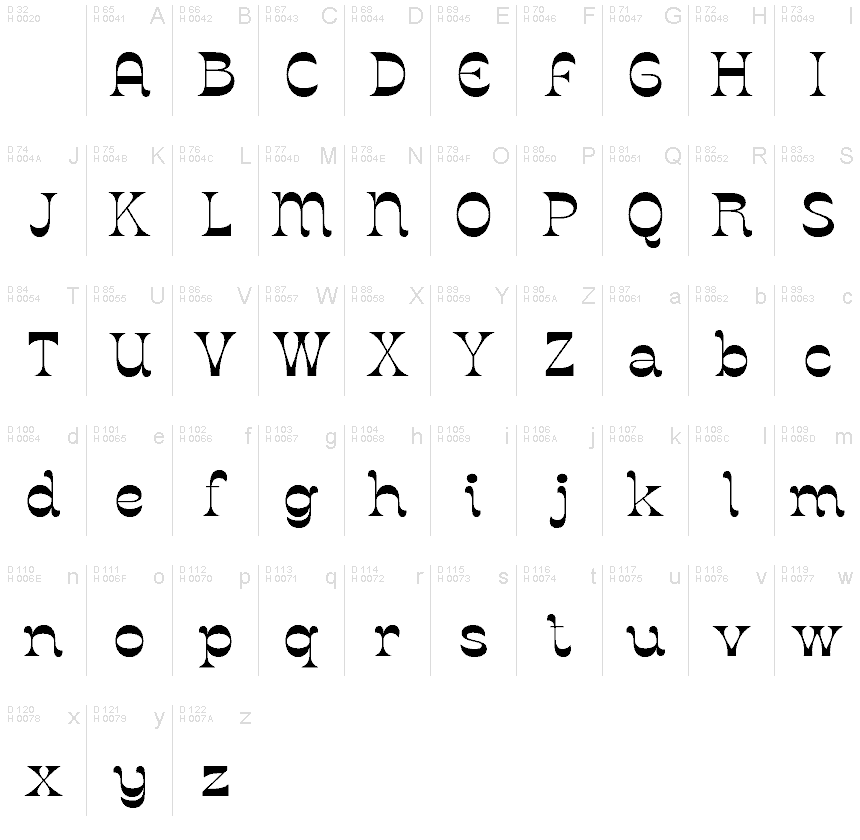
CS Homer Demo Regular
CS Homer font by Craft Supply Co. is a modern serif font exuding minimalistic elegance and contemporary sophistication. Influenced by geometric elements, it combines clean lines with subtle curves, resulting in a balanced and harmonious appearance. This free font seamlessly blends tradition with modernity, making it a versatile choice for various design projects.
Ideal use cases include branding, logo design, fashion editorial spreads, book covers, stationery sets, website headers, luxury packaging designs, social media graphics, billboard advertisements and exhibition banners.